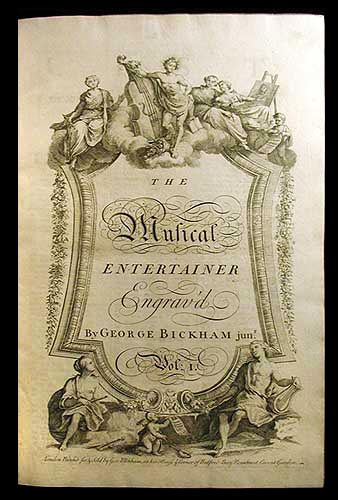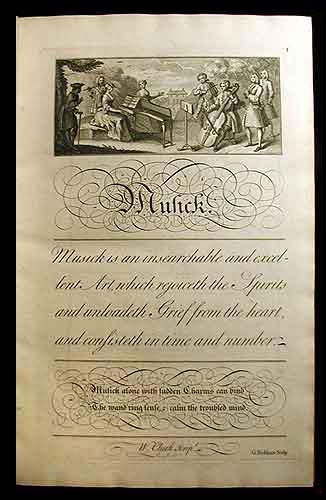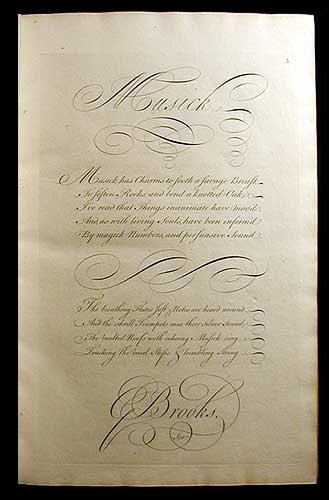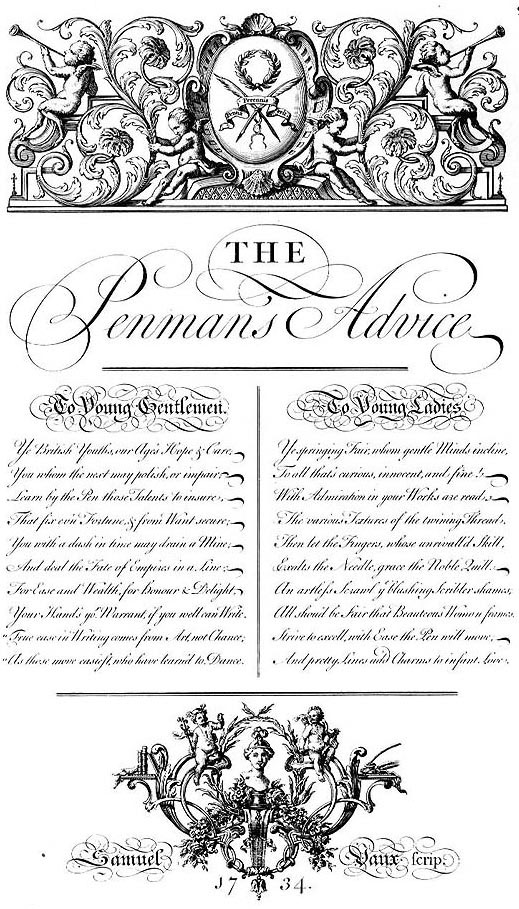
Bickham, George (pai e filho)Mestres-calígrafos britânicosGeorge Bickham Senior (1684-1758)Foi um dos mais famosos autores do seu tempo. Escreveu The Universal Penman e as seguintes obras:
George Bickham nasceu em Londres. He was a famous and honored engraver and artist during his lifetime. In 1736 he became a member of the Free Society of Artists. Famous are his portraits of well-known personalities of his time like Isaak Newton, George I King of Denmark, the British Queen ("Ann Regina") and of famous admirals. In 1733, George Bickham advertised that he accepting subscriptions for The Universal Penman. Twenty five different scribes from all over London were employed to design material for Bickham who guaranteed to the public that he would be responsible for engraving all the designs. The work was not unusually for the period to appear in parts - issued in weekly parts, "each to consist of four engraved folios, printed on one side, and costing six pence each." In 1757 he auctioned his plates and his whole inventory. Two years later he died in Richmond.
George Bickham the Younger (c. 1706-1771)English etcher and engraver, a printseller, and one of the first English caricaturists. He produced didactic publications, political caricatures, and pornographical prints. He was the son (or nephew) of the engraver George Bickham the Elder (1684-1758), who published the Universal Penman